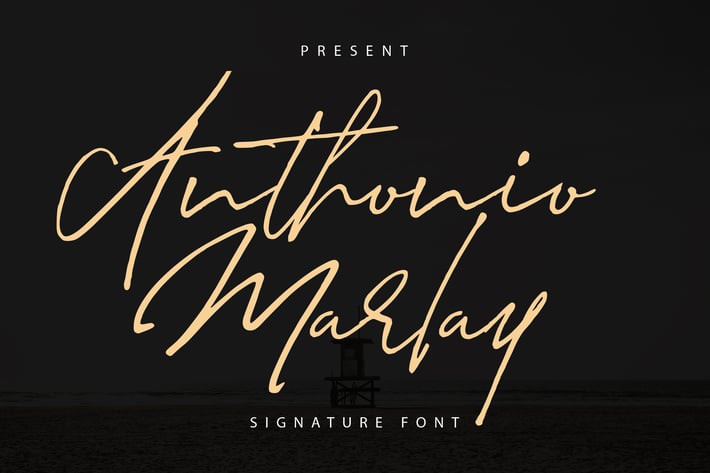
Anthonio Marlay | Signature Font
Anthonio Marlay | Signature Font with a calligraphy style, So beautiful on invitation like greeting cards, branding materials, business cards, quotes, posters, and more!